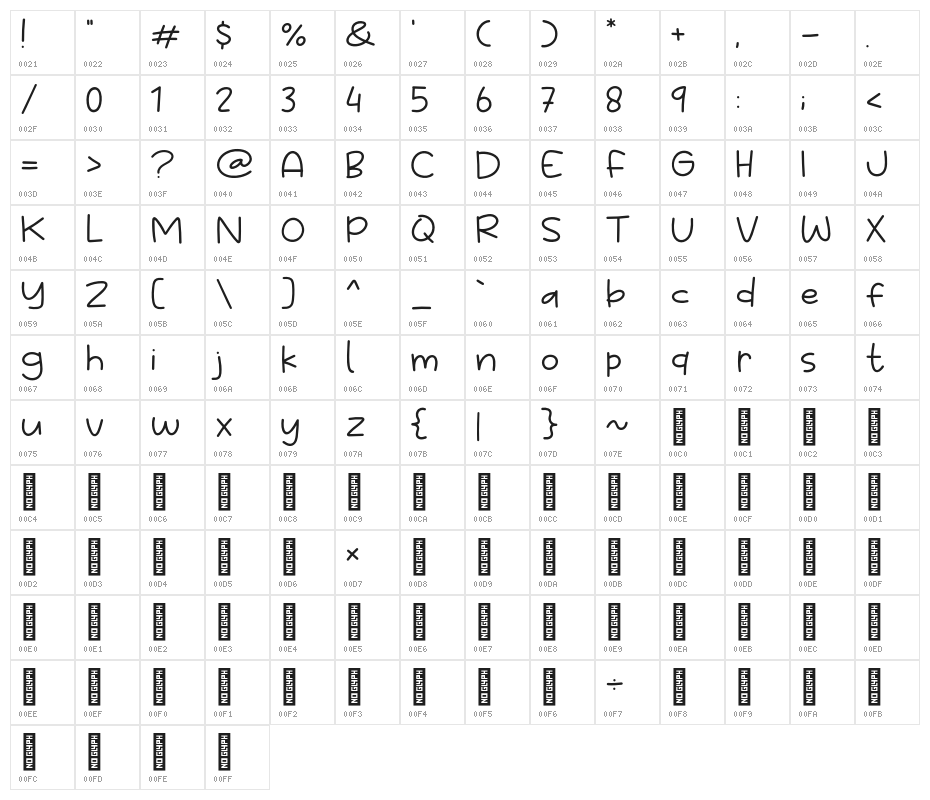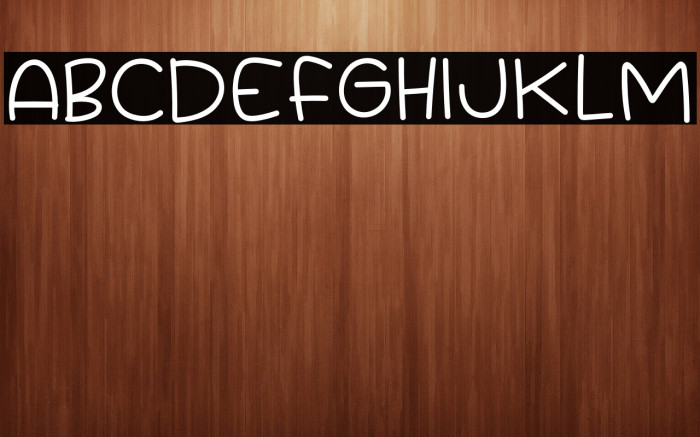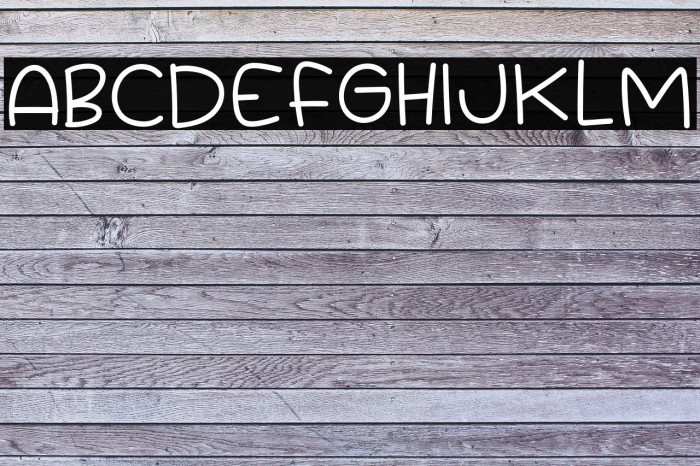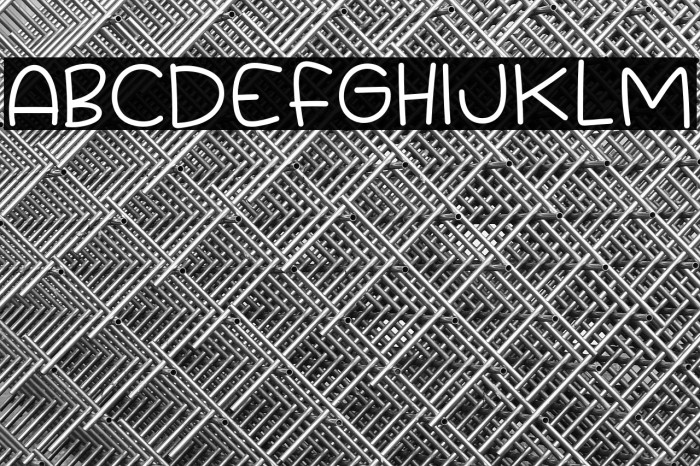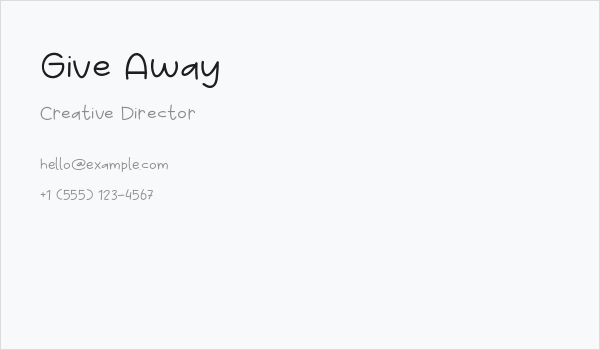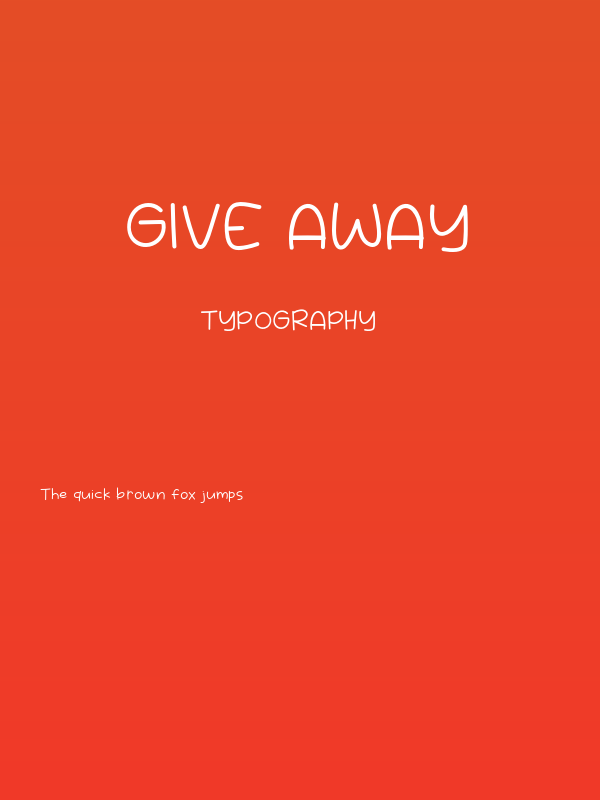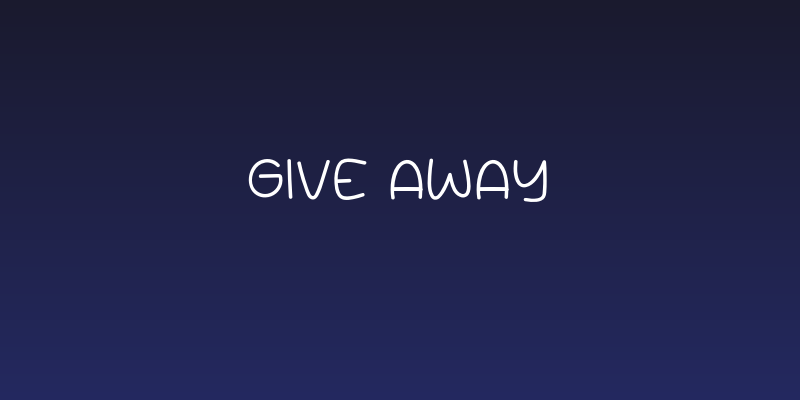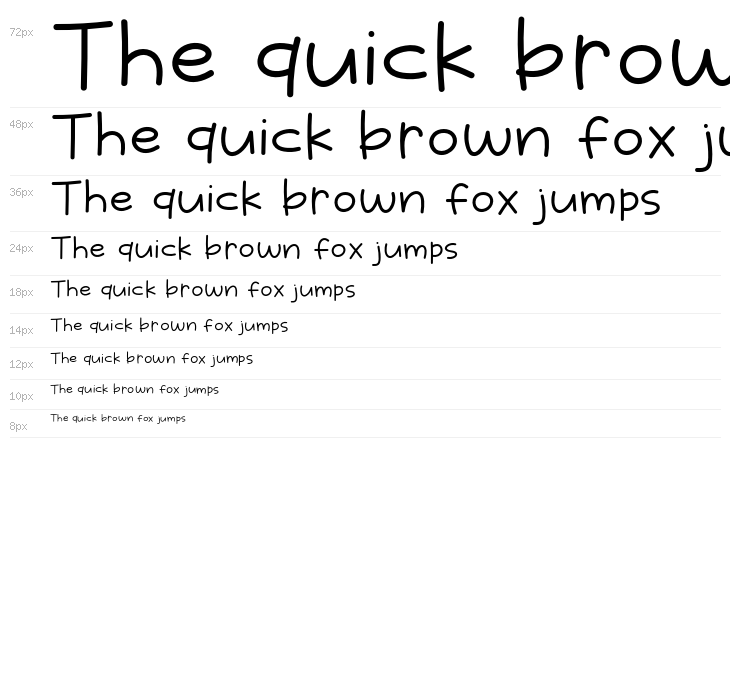
Give Away Font
Give Away Description
This font features a playful and informal handwritten style, characterized by its rounded and slightly irregular letterforms. The strokes are consistent in width, giving it a uniform appearance while maintaining a casual and friendly vibe. The uppercase and lowercase letters are well-proportioned, with a slight slant that adds to the handwritten feel. The numerals and special characters follow the same style, ensuring coherence across all glyphs. This font is versatile and can be used to convey a sense of approachability and warmth in various design contexts.
| Proposed Projects | Ideal for children's books, greeting cards, casual invitations, and playful branding projects. |